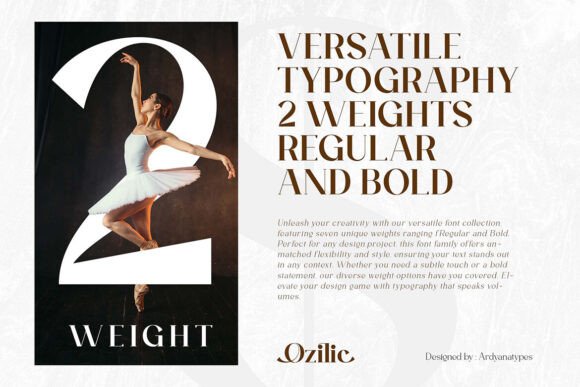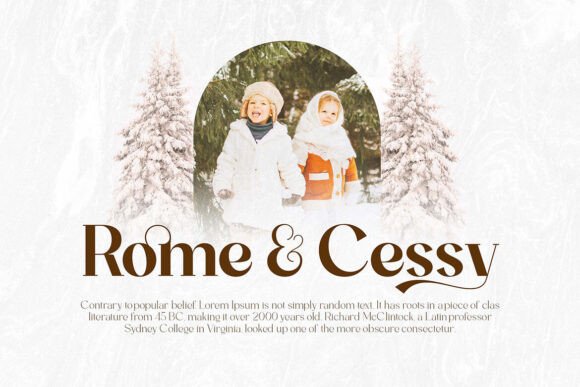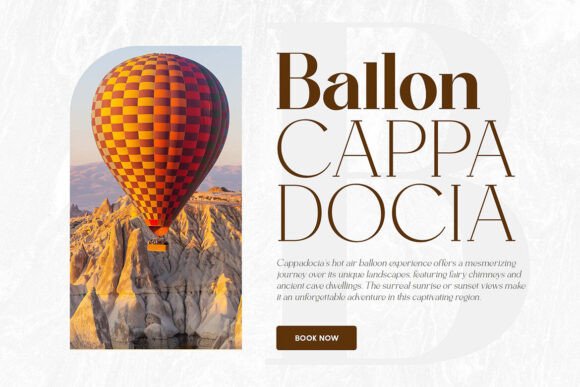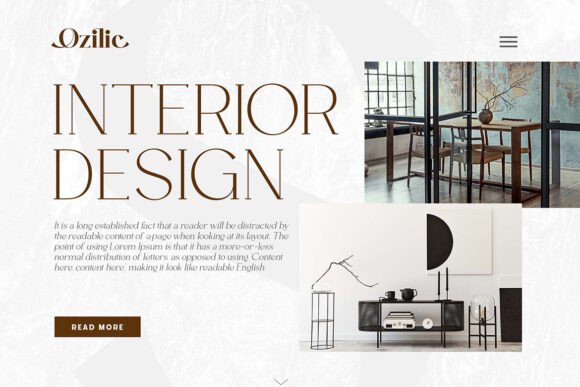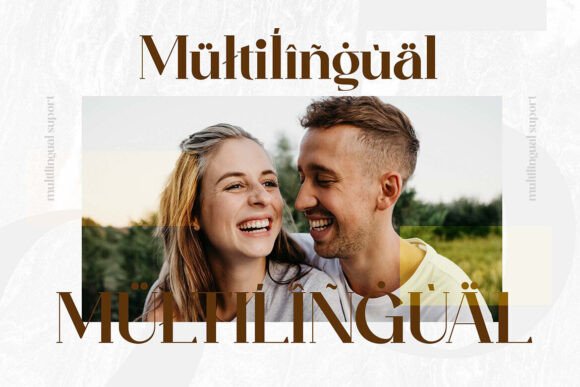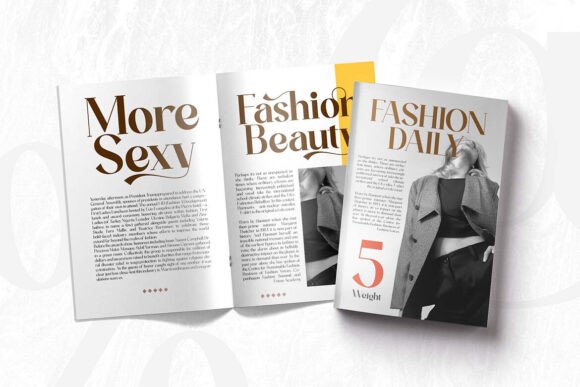
Introduction to Ozilic Font
Ozilic is a meticulously crafted serif font designed to meet diverse creative needs.
Inspired by contemporary font styles, it features comprehensive OpenType functionalities, offering ultimate flexibility for your design projects Whether youโre working on posters, movie titles, books, branding media, or large-scale projects, Ozilic adapts effortlessly to any design style.
Key Features of Ozilic Font